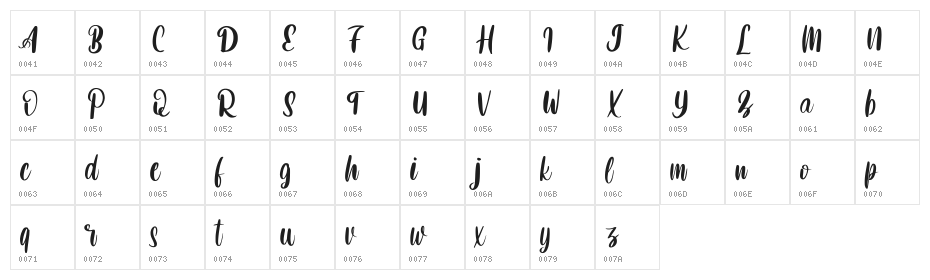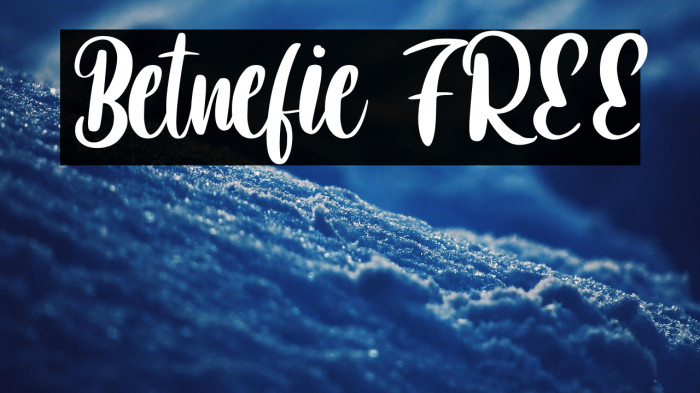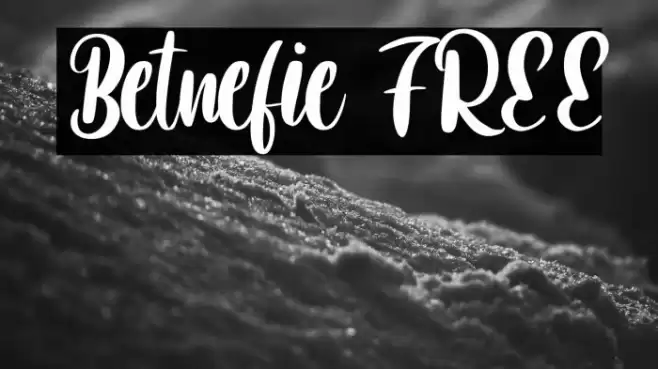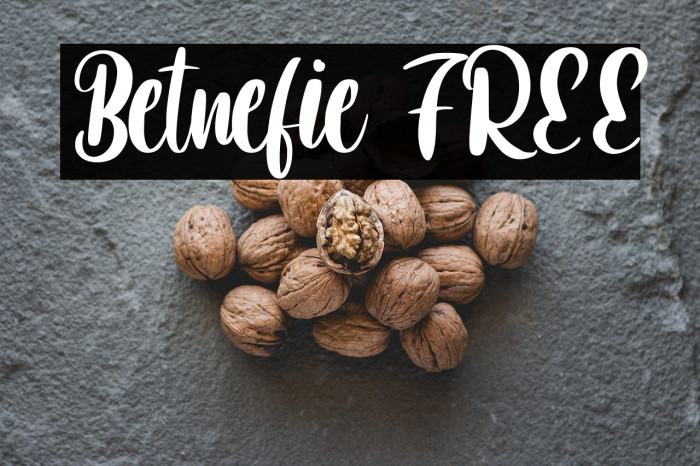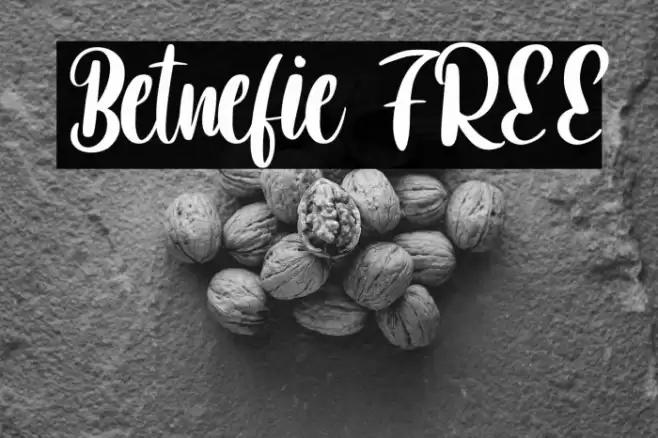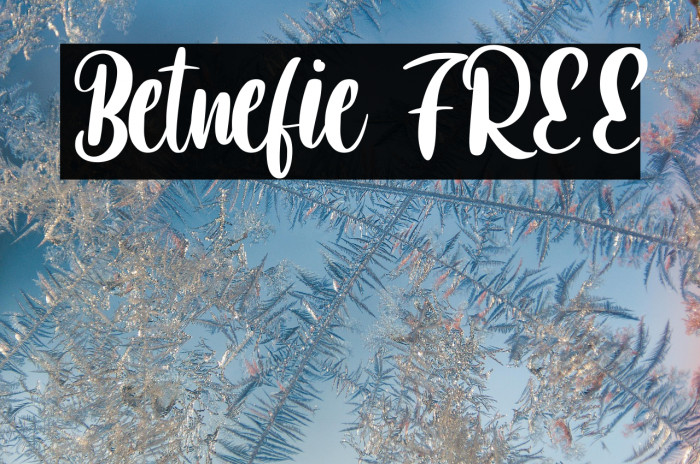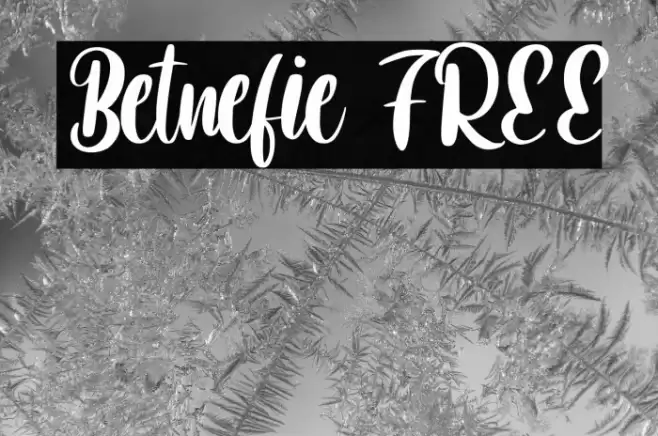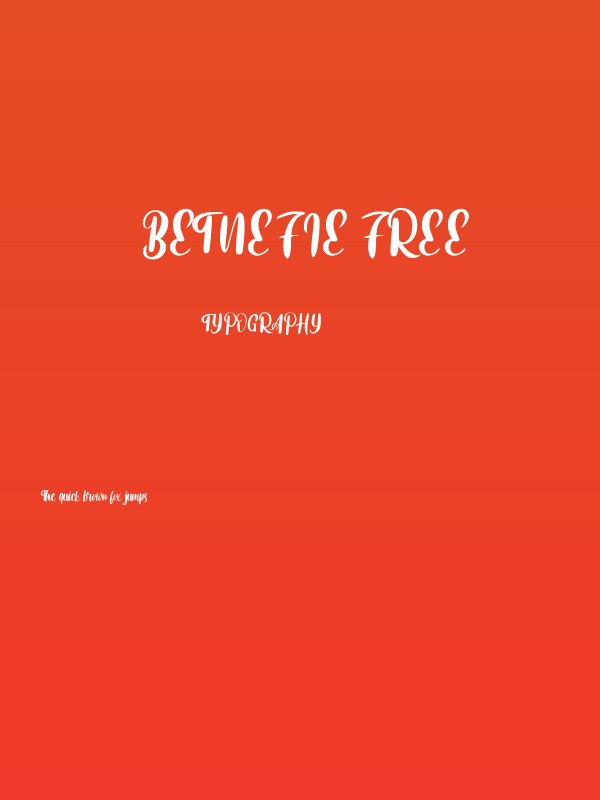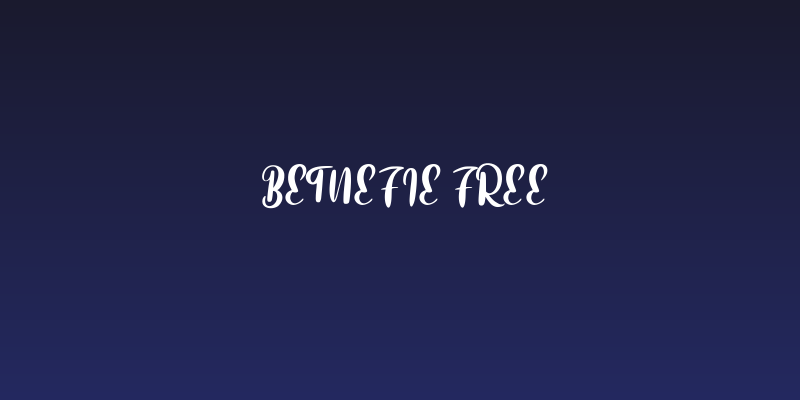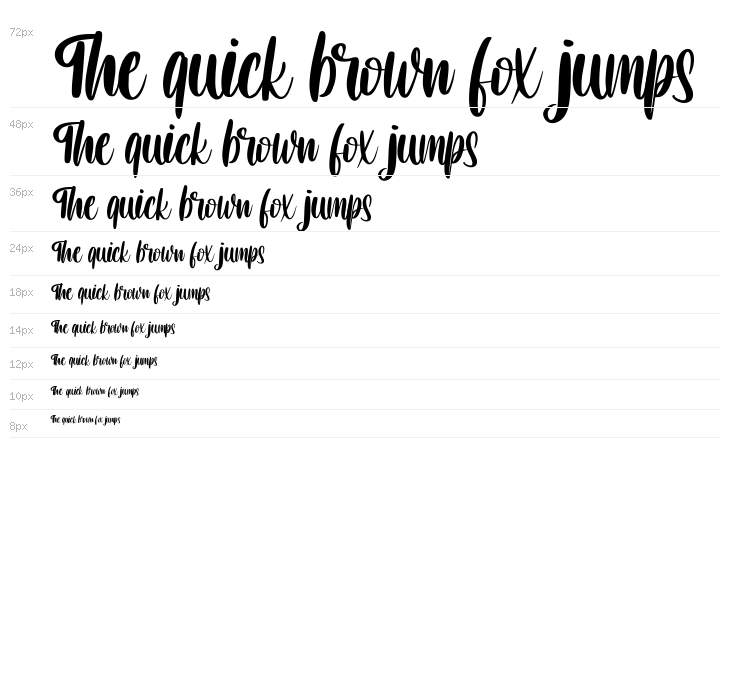
Betnefie FREE Font
Betnefie FREE Description
This font features a bold and flowing script style, characterized by its elegant and smooth curves. The uppercase letters are particularly striking, with a dynamic and slightly exaggerated flourish that adds a sense of movement and grace. The lowercase letters maintain a consistent style, offering a harmonious blend with the uppercase. The numbers and special characters are designed to match the overall aesthetic, ensuring a cohesive look across all text elements. This font's design is both modern and timeless, making it versatile for various creative applications.